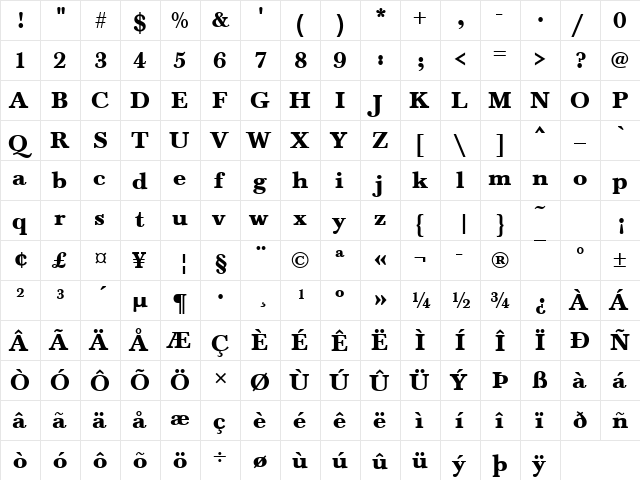
Baskerville Becker Bold
Design Context for Baskerville Becker Typeface
Baskerville Becker offers clean, dependable letterforms without strong stylistic allegiance, making it a practical choice for designers who need flexibility. Its bold stroke weight gives it real presence on the page.
Pro Tip: Use Baskerville Becker in both headline and body roles to test its range before committing to a single application.